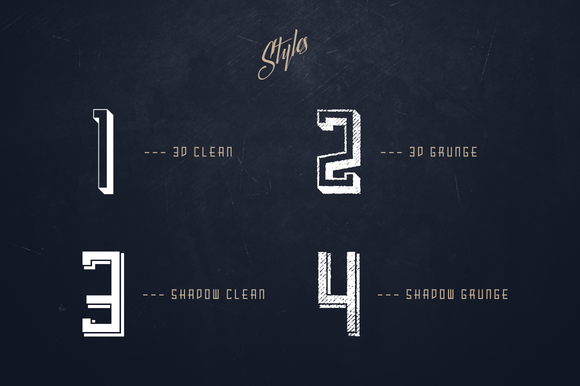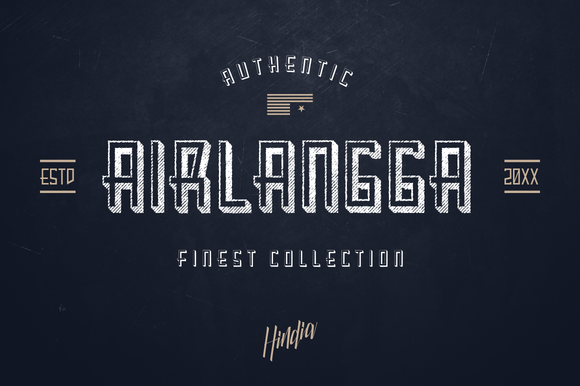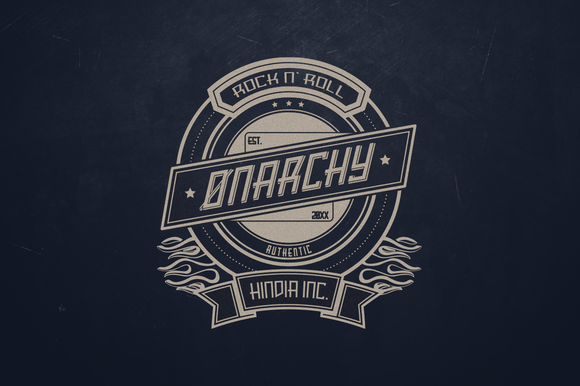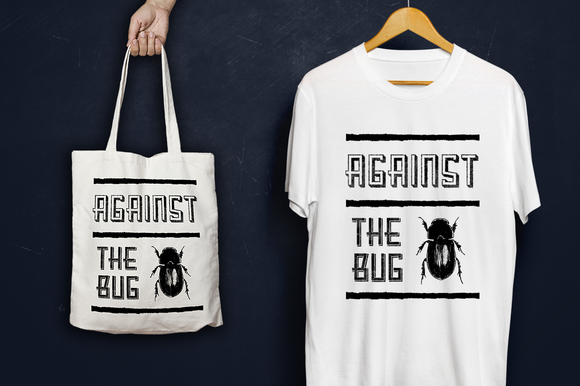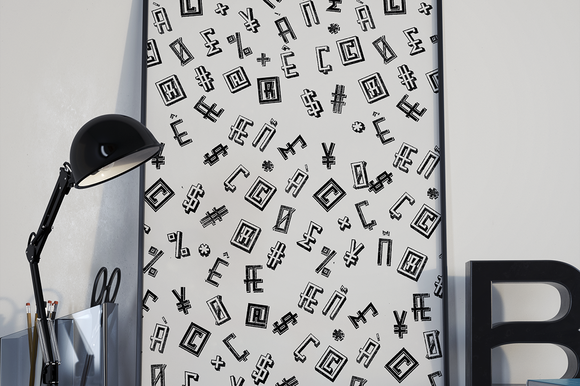
Enter the Kahuripan Font, a display typeface that’s perfect for adding a touch of vintage charm to your designs. With its elegant, handcrafted aesthetic, this font is ideal for headings, logos, invitations, and much more. Whether you’re working on a project that requires a sense of nostalgia or a dash of whimsy, the Kahuripan Font is sure to become your go-to choice.
Kahuripan Font Key Features
- Font Family: Kahuripan Font is a typeface designed specifically for the Indonesian language, making it ideal for local publications and documents.
- Unique Characteristics: The font features a unique blend of traditional and modern elements, reflecting the rich cultural heritage of Indonesia.
- Language Support: Supports the Indonesian language, as well as other languages that use the Latin alphabet, making it a versatile font for international publications.
Kahuripan Font Review
Overall, I was excited to dive into the Kahuripan Font, but my experience was a mixed bag. Let’s start with the good stuff: ✨ I love the unique, vintage vibe this font brings to the table. The intricate details and ornate flair make it perfect for adding a touch of elegance to your designs. The font’s versatility also makes it suitable for a wide range of applications, from logo design to book covers.
However, there are some limitations to consider: ⚠️ The font’s complexity can sometimes make it difficult to read, especially at smaller font sizes. Additionally, the font’s file size is quite large, which may cause issues for designers working with limited storage or bandwidth.
In terms of customization, the font offers a range of weights and styles, but some of the options feel a bit inconsistent. The font’s kerning could also be improved, as some letter combinations appear slightly off.
- Unique, vintage aesthetic
- Highly versatile
- Perfect for adding elegance to designs
- Large file size
- Complexity can make it difficult to read at smaller font sizes
Some popular use cases for the Kahuripan font include:
1. Designing cultural or historical-themed materials.
2. Creating artistic or creative text-based designs.
3. Adding a unique touch to business cards or brochures.